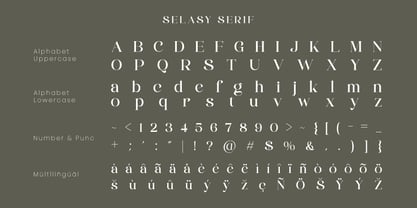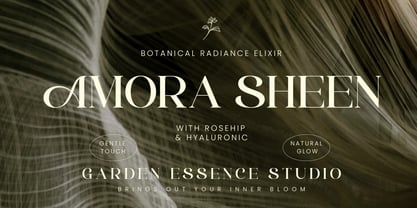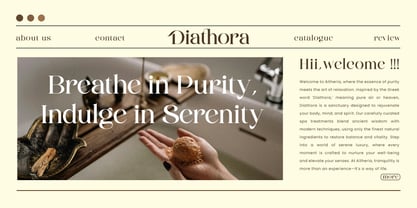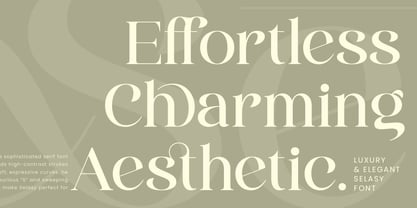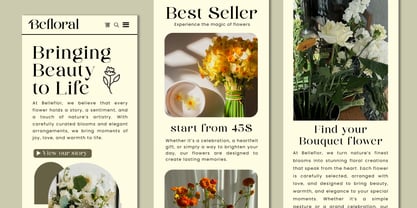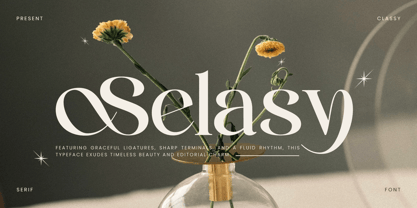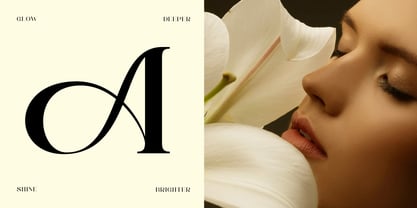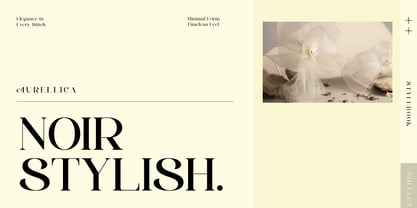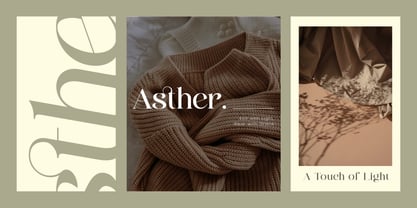
Selasy
by Jafar07
The Selasy Font Family was designed by Bakhrudin Ja'far and published by Jafar07. Selasy contains 2 styles and family package options. More about this family
Selasy is a refined serif typeface that blends timeless beauty with modern sophistication. Designed to elevate your design work with effortless class, Selasy features graceful ligatures, sharp terminals, and a fluid rhythm that draws the eye and holds attention. Whether you’re working on editorial layouts, branding presentations, packaging, logo, or wedding stationery, Selasy adds a sense of polished elegance to every project.
Its high-contrast strokes and delicately sculpted letterforms make it a perfect choice for premium visual storytelling. From fashion lookbooks to luxury cosmetics, Selasy delivers clarity and charisma without trying too hard.
Designers: Bakhrudin Ja'far
Foundry: Jafar07